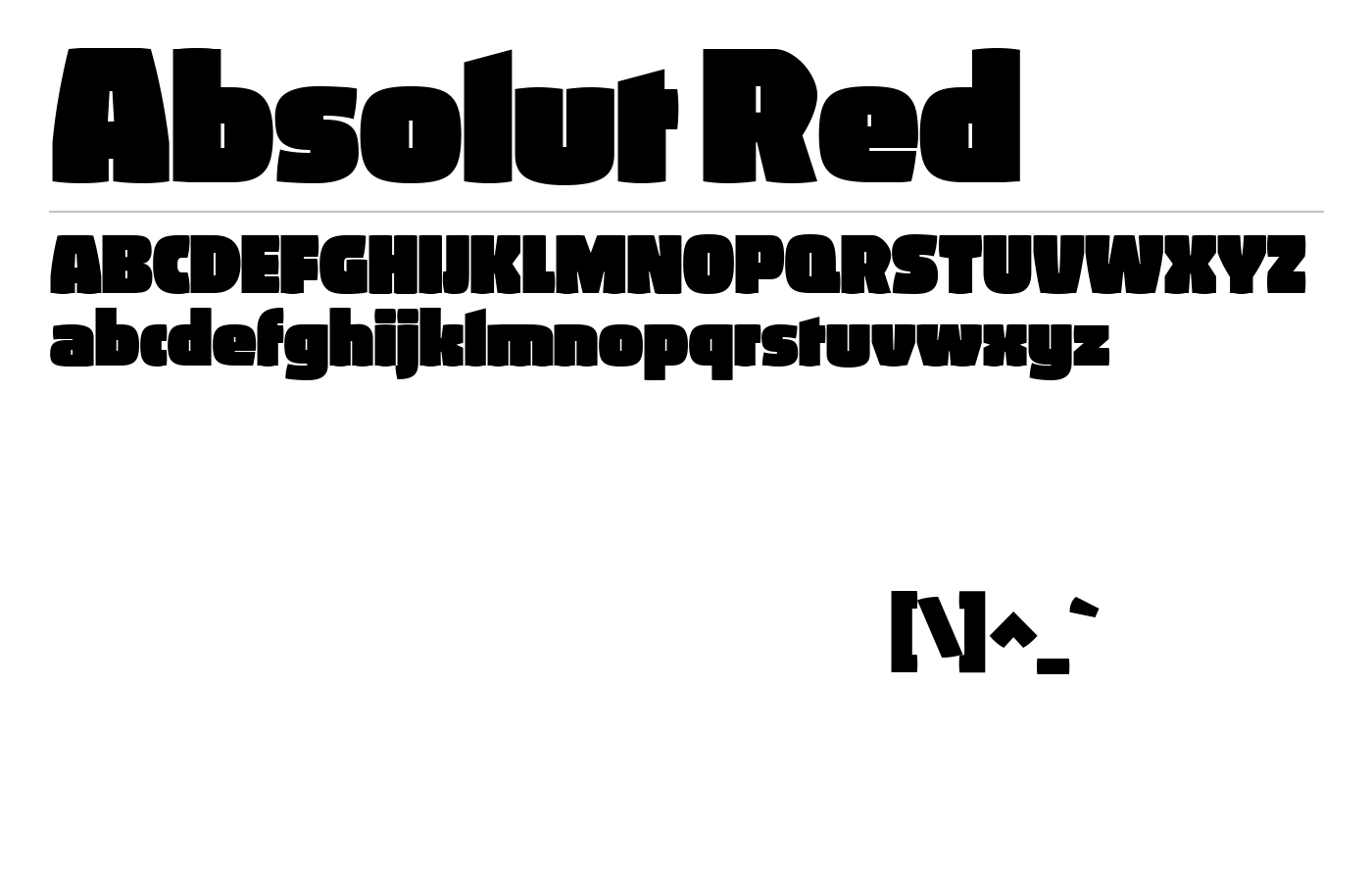
Absolut Red is a bold, condensed sans serif font with a strong, heavyweight presence and slightly irregular, soft-edged letterforms that give it a dynamic and playful character. Its thick strokes and tight spacing make it ideal for impactful headlines, logos, and branding where a modern, eye-catching statement is needed. This font works well in creative and energetic contexts, adding a sense of fun and strength to packaging, posters, and editorial designs.
Absolut Red Font
About Absolut Red Font